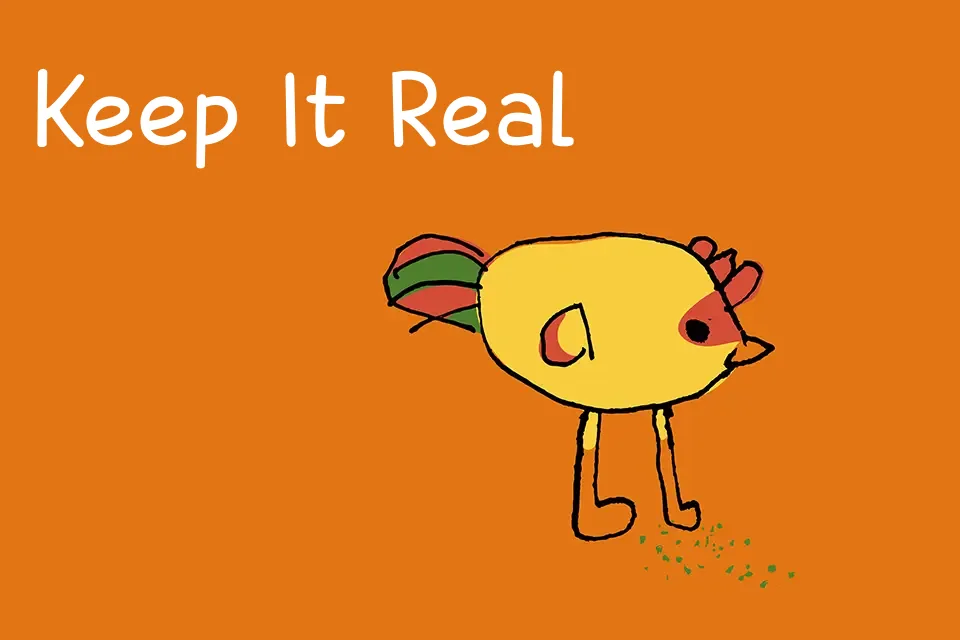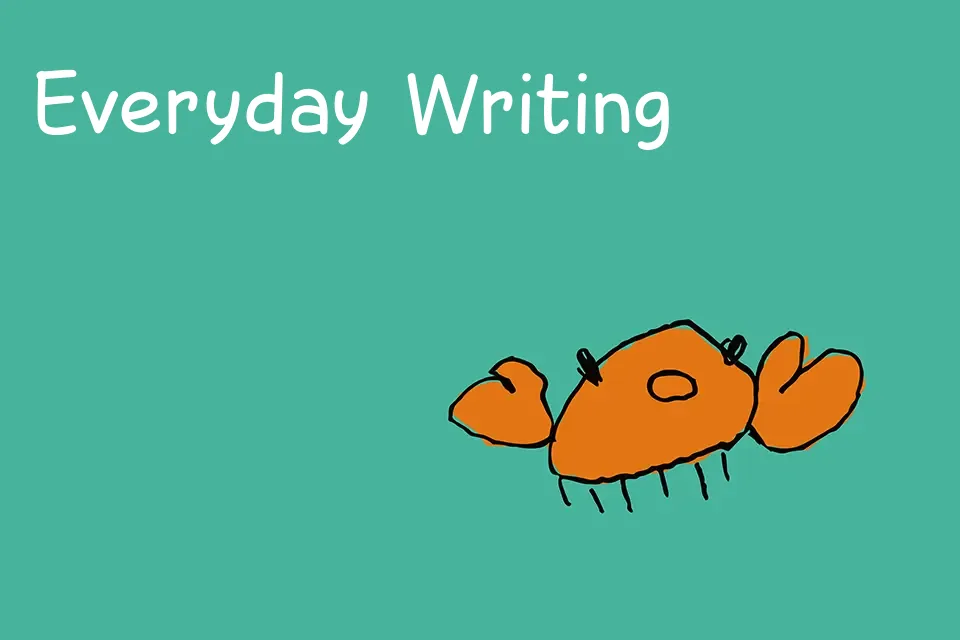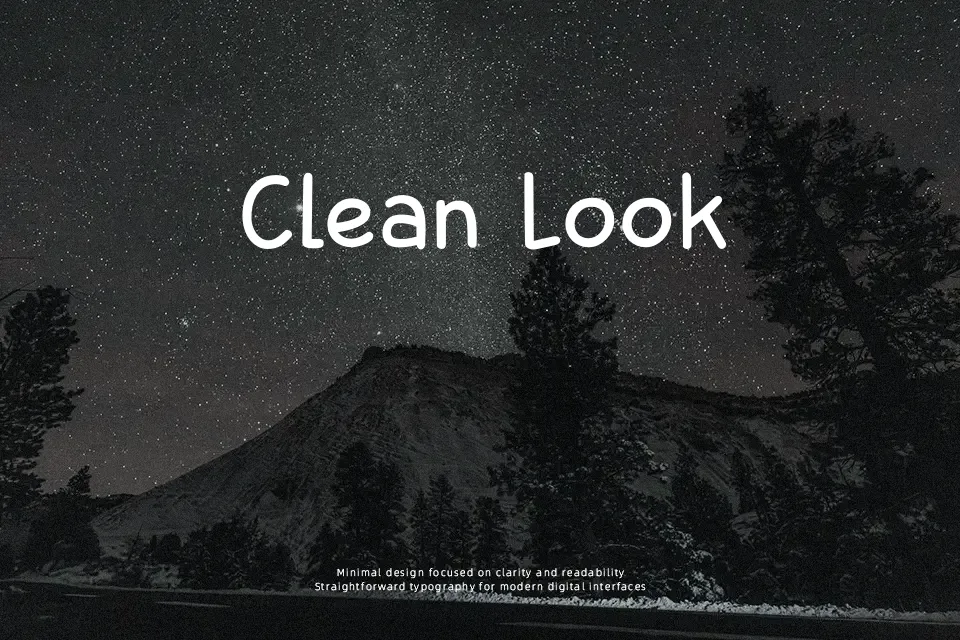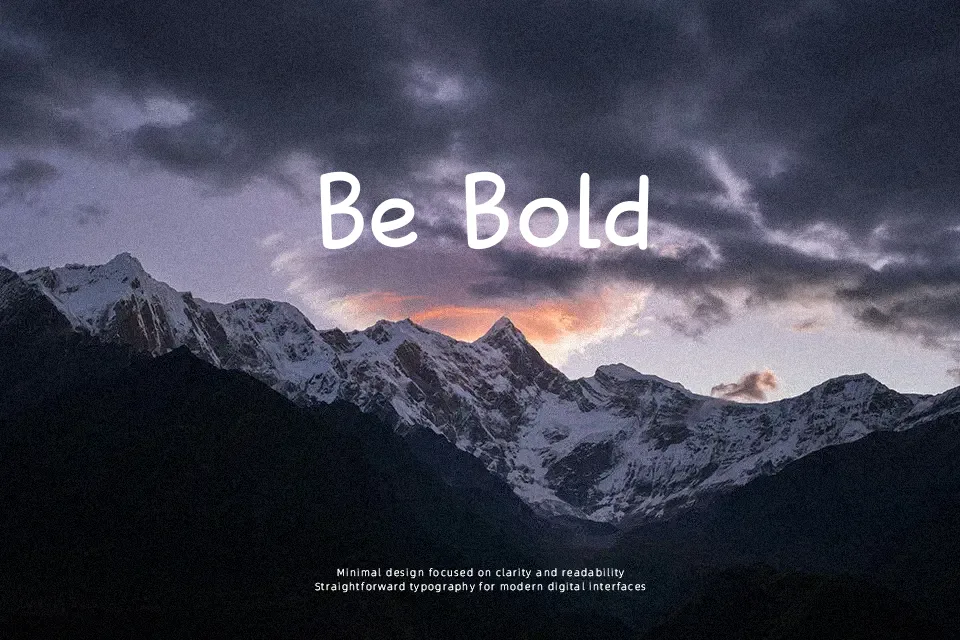
Sunbird Font
Sunbird Font introduces an animated, hand-drawn aesthetic built around organic stroke contours, rounded terminals, and asymmetrical letter proportions. The character spacing remains moderately loose to accommodate the bouncy baseline shifts, which helps maintain clarity in large display headings and casual promotional banners. While the inconsistent stroke weights and quirky curves lend energetic personality to short titles, packaging labels, and game interfaces, the informal rhythm becomes difficult to scan smoothly across long body paragraphs or dense editorial layouts. Designers will find that the letterforms deliver their strongest visual charm when rendered at prominent sizes rather than in restricted captions.
Best For: children book covers, animated title cards, playful product packaging, casual event posters
Not Ideal For: continuous paragraph text, corporate financial reports, dense editorial layouts, small interface captions
Perfect for headline, kids, and packaging, with a creative and cartoon style.